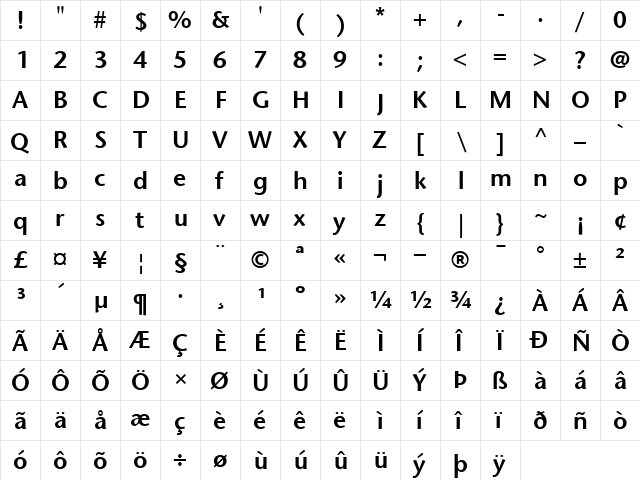
ITCStoneSans-SemiBold Semi Bold Font Preview
ITCStoneSans-SemiBold Semi Bold
ITCStoneSans-SemiBold Semi Bold Font Details
Design Context for ITCStoneSans-SemiBold Typeface
ITCStoneSans-SemiBold is a composed and adaptable typeface that performs quietly and consistently across a wide range of design contexts. Its bold stroke weight gives it real presence on the page.